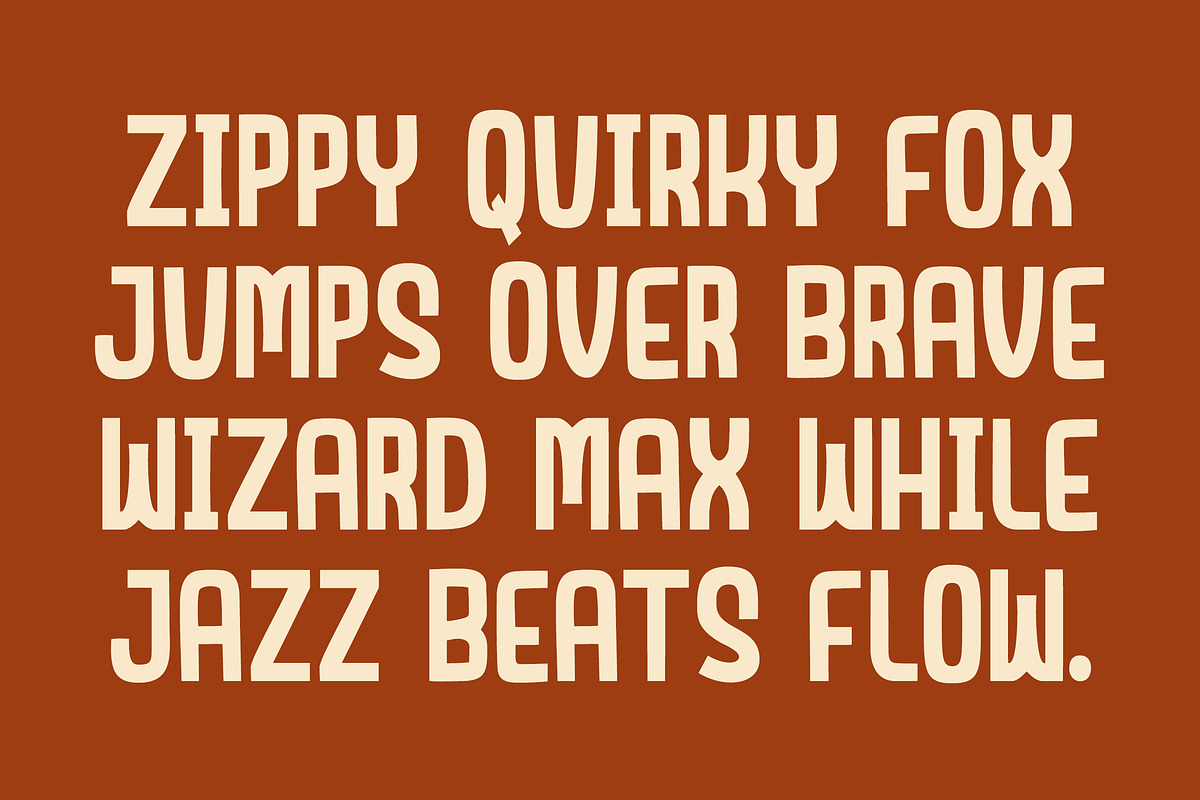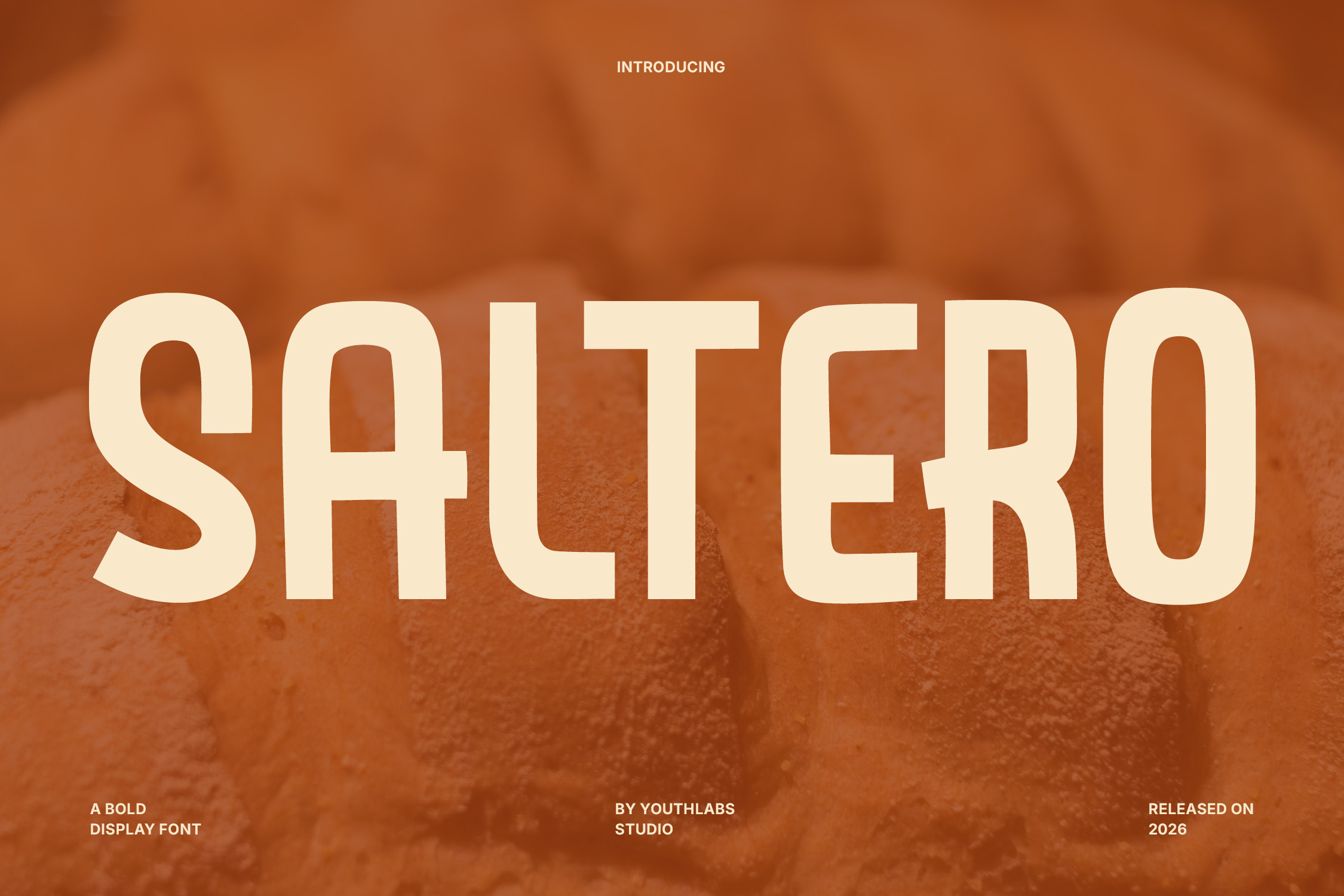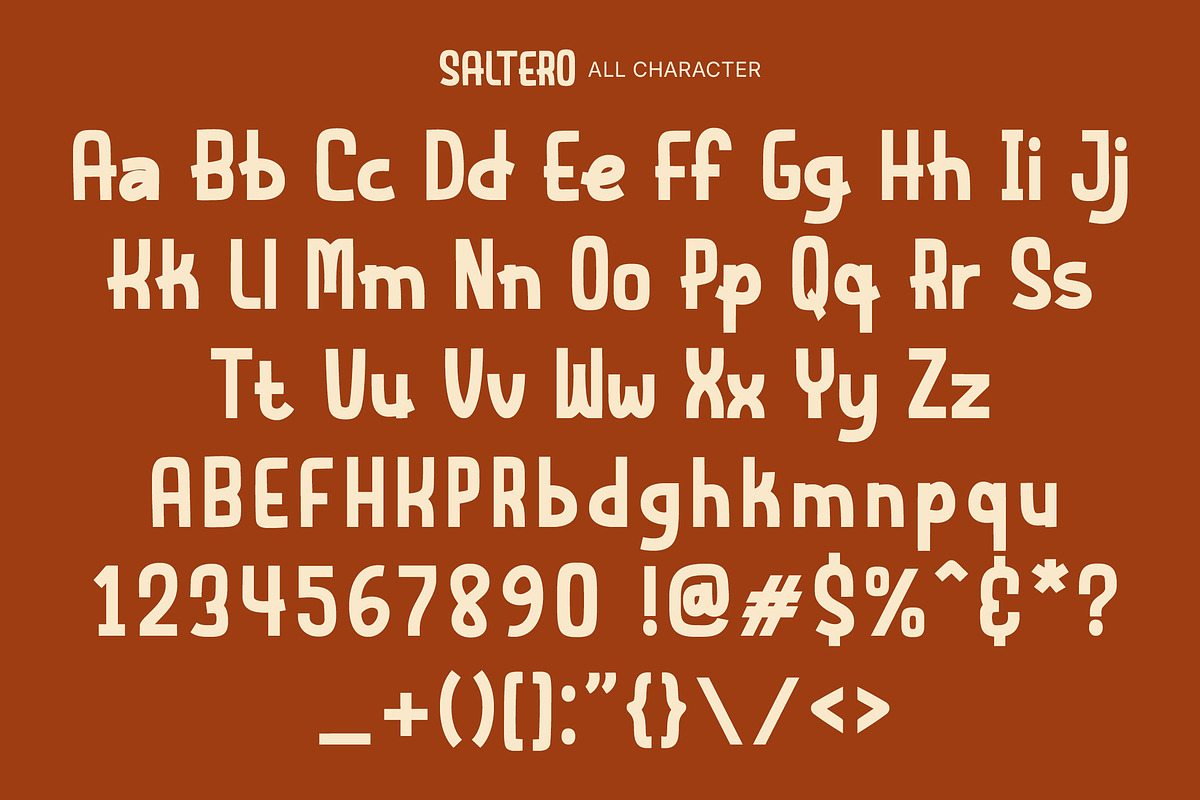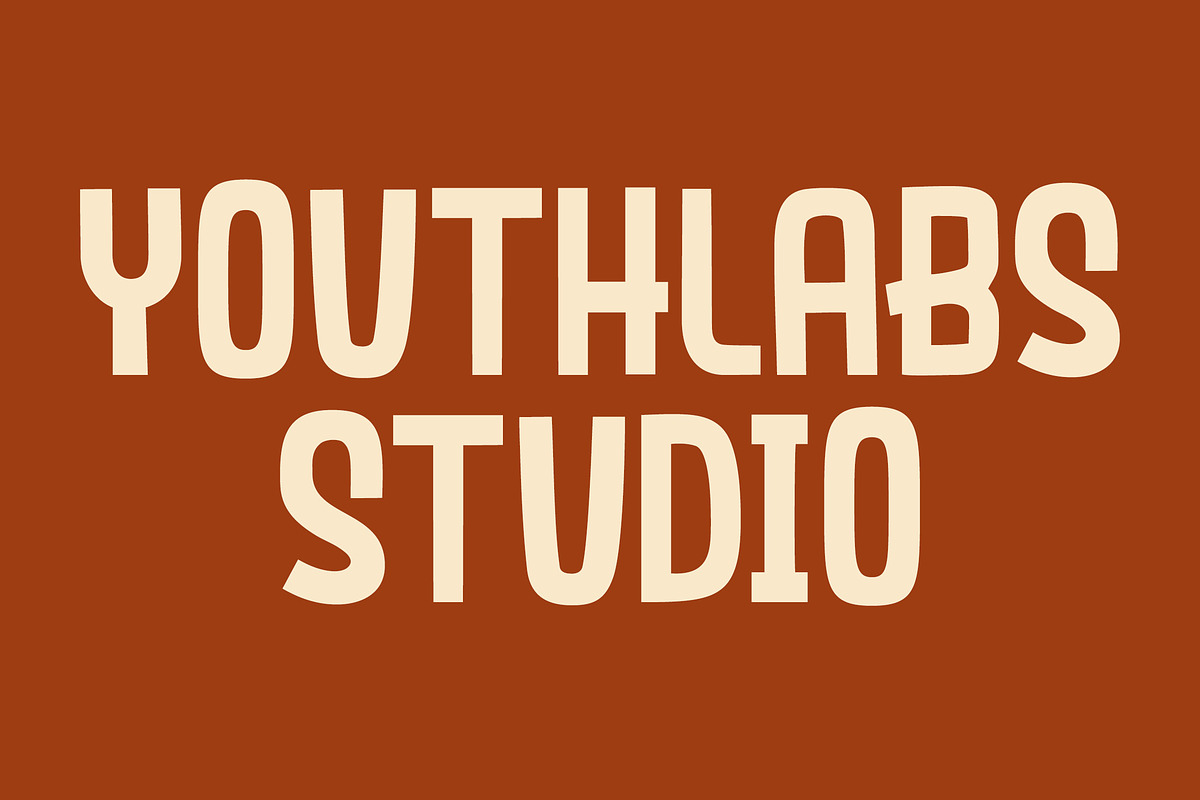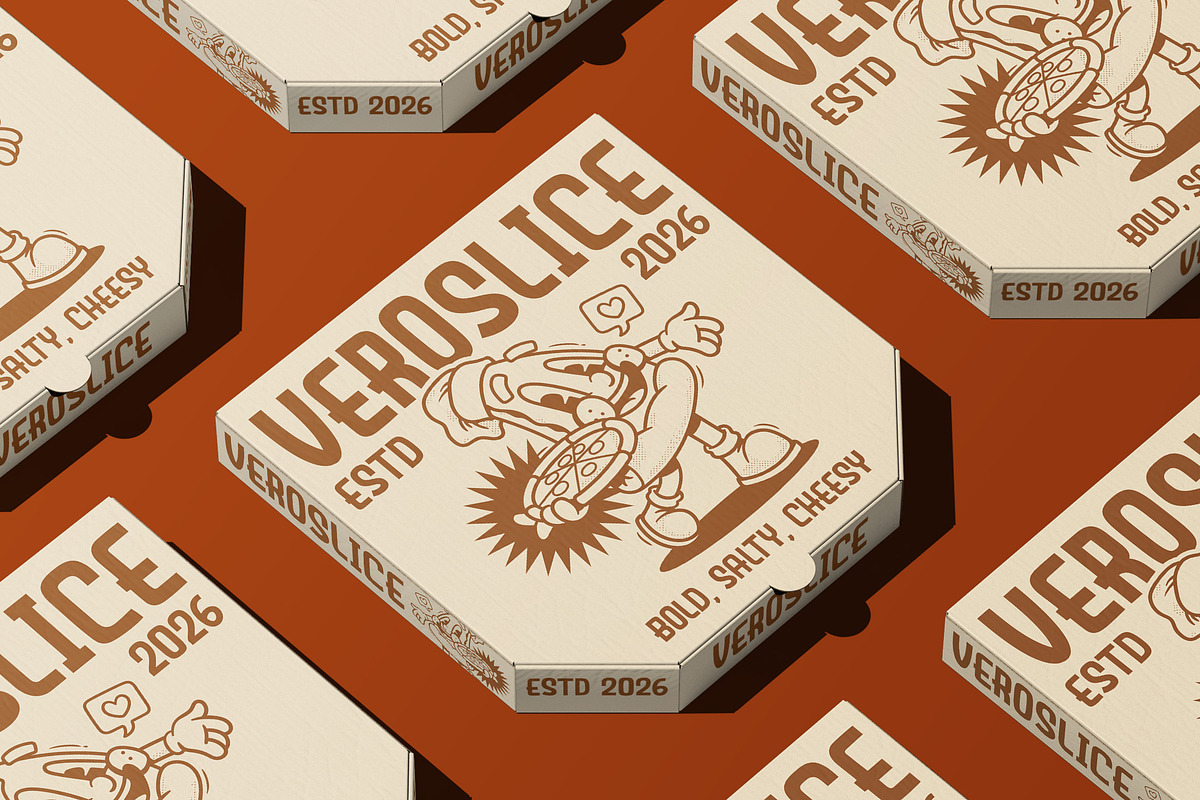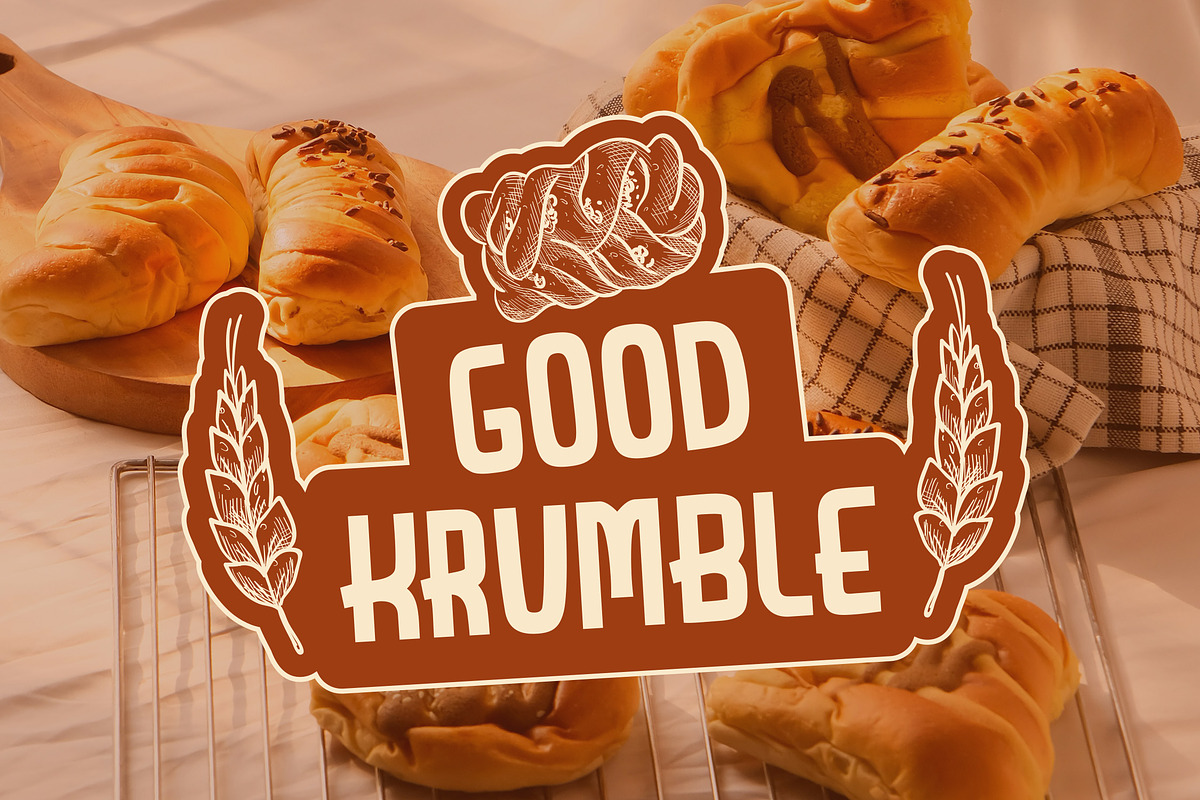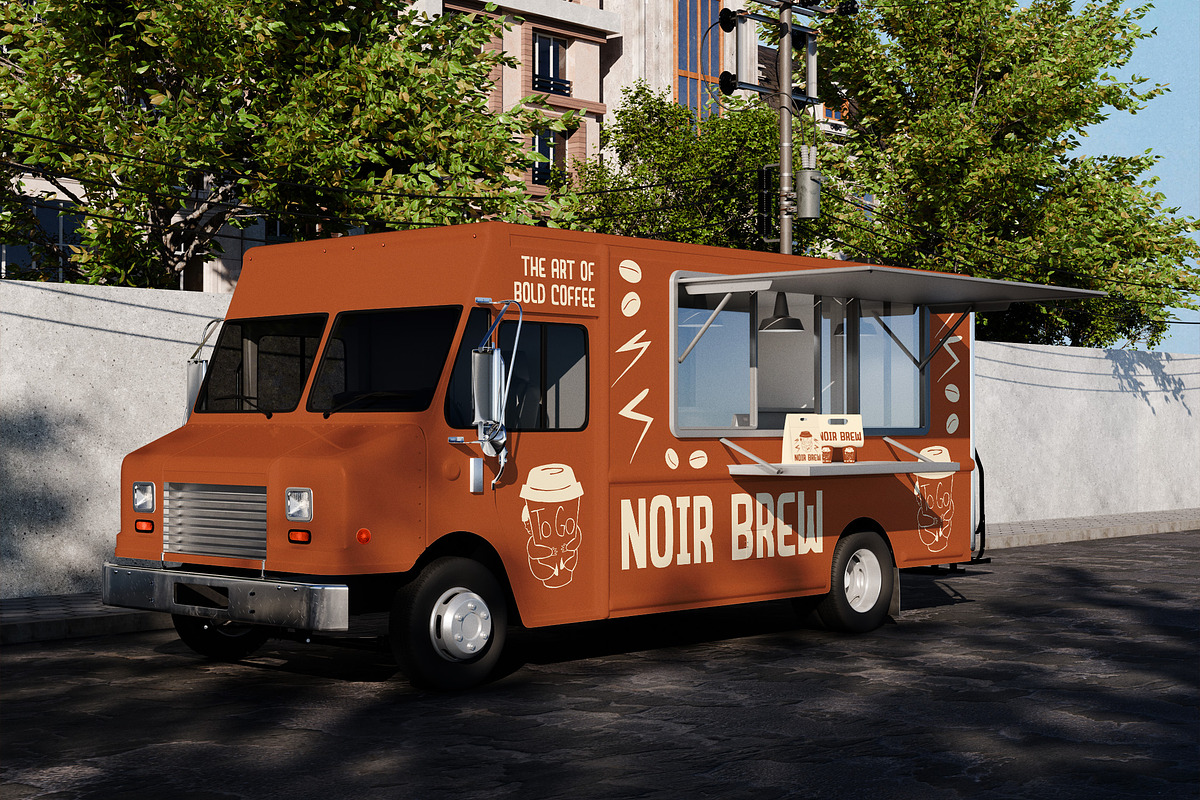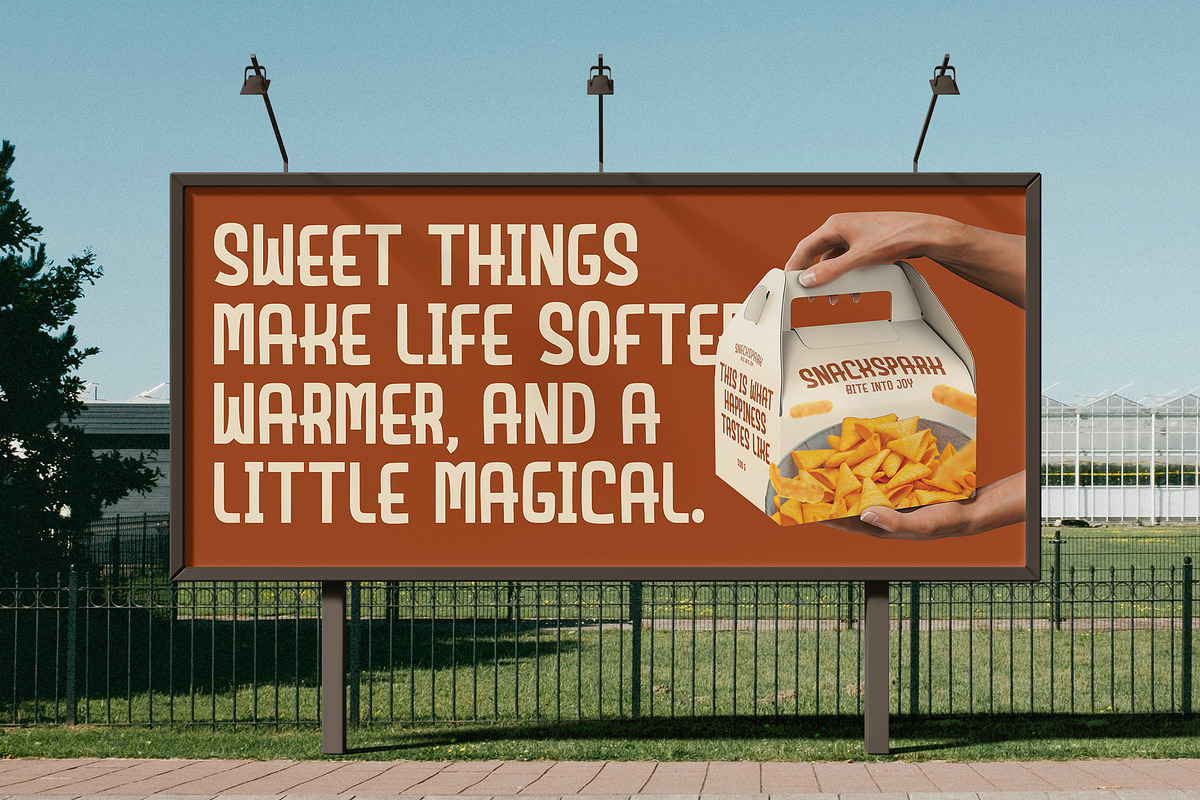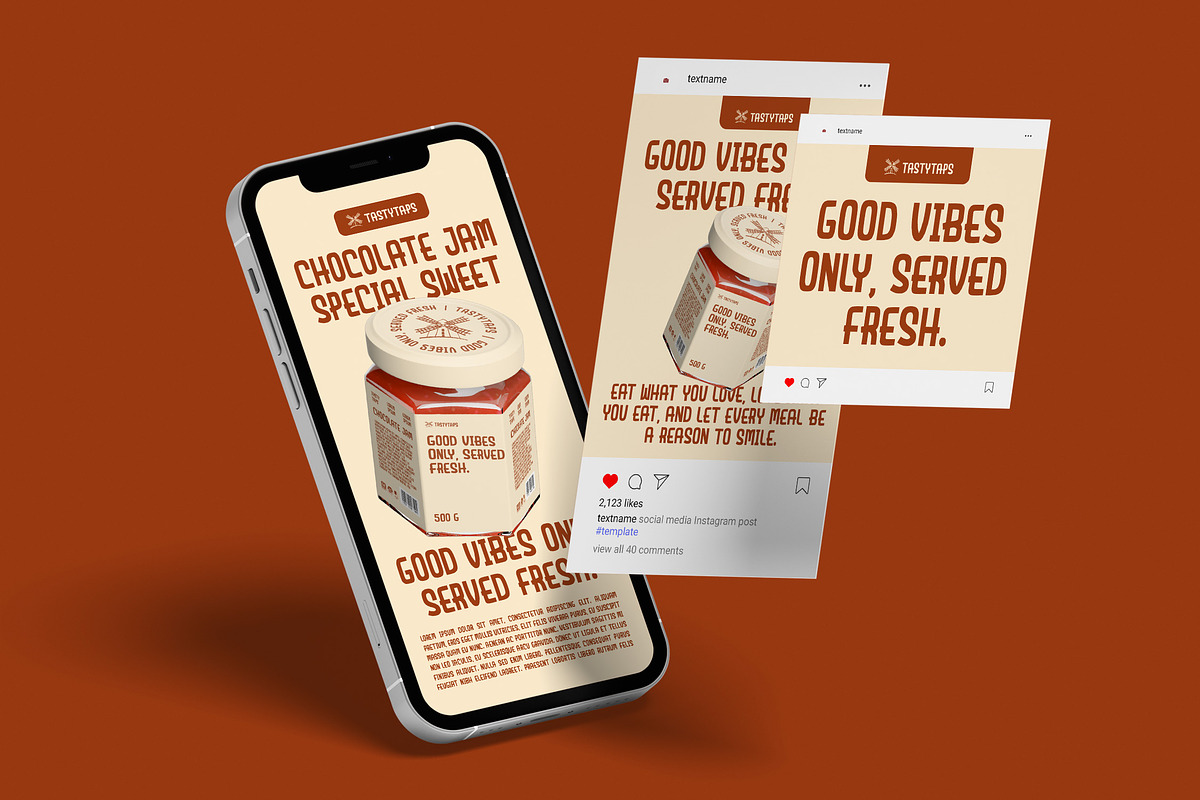
Saltero - Bold Display Font
Saltero is a bold display font with smooth curves and confident shapes inspired by warmth, comfort, and modern simplicity. Its friendly yet strong character makes it perfect for food branding, bakery packaging, posters, menus, logos, and bold headlines. Saltero delivers a soft visual tone while maintaining excellent readability, making it ideal for both commercial and editorial designs.
- Bold display typeface
- Smooth and rounded letterforms
- Strong visual presence
- Clean and modern style
- High readability at large sizes
- Perfect for food & bakery branding
- Ideal for posters, menus, and logos
- Warm and friendly personality